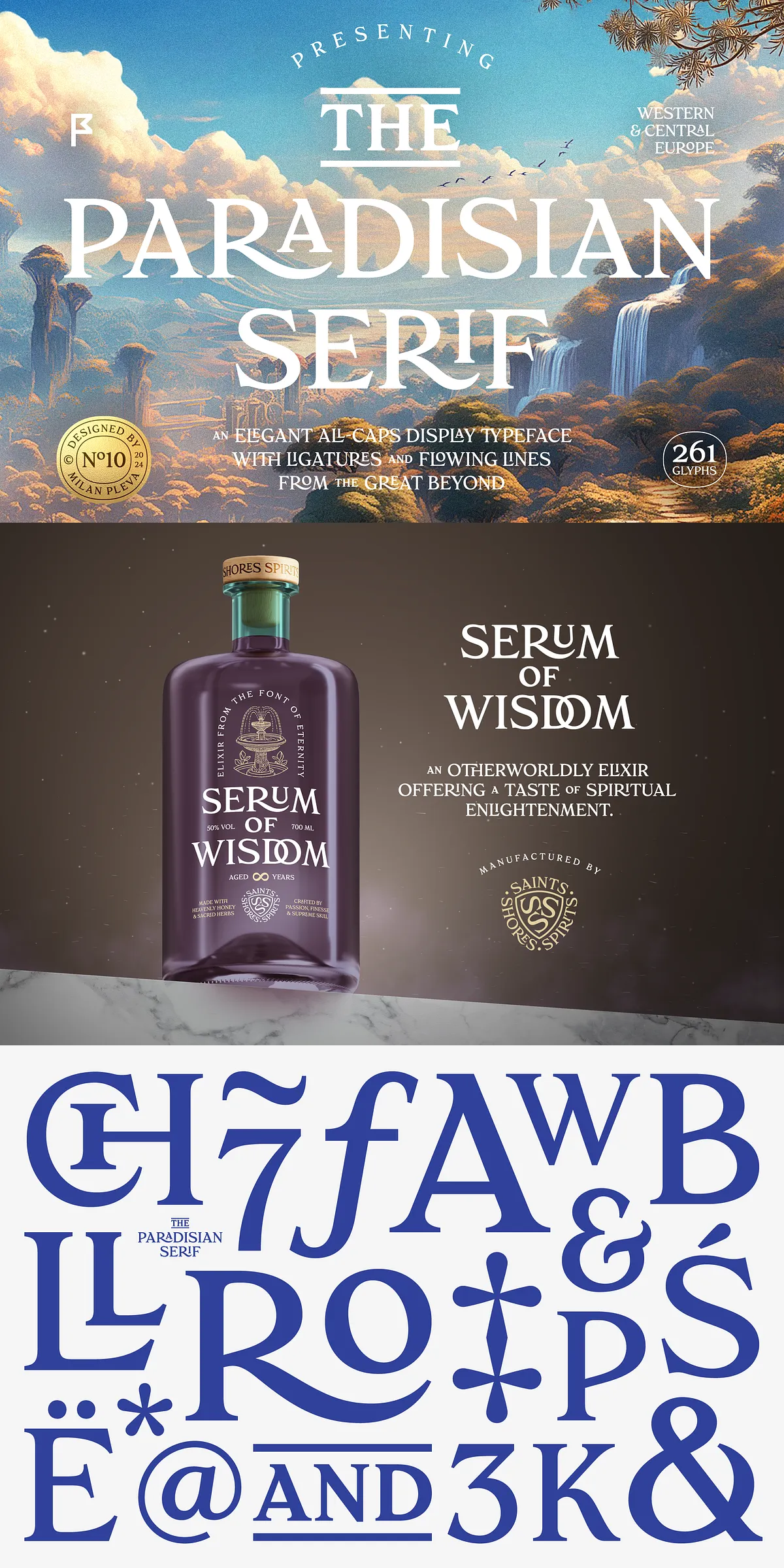
Unleash the full potential of your design with Paradisian Serif, a striking all-caps display typeface that blends architectural precision with flowing grace. Crafted for creatives who demand both presence and polish, this font doesn’t just convey text—it commands attention. Whether you’re crafting a bold logo, designing a magazine cover, or setting the tone for an editorial spread, Paradisian Serif brings sophistication to every stroke and every letterform.
Elevated Aesthetics: Crafted with Intention and Beauty
Every curve, connection, and flourish in Paradisian Serif is meticulously designed to create seamless visual harmony. The typeface’s balanced proportions, soft yet defined serifs, and elegant transitions between characters deliver an effortlessly refined look. It’s not merely a font—it’s a design philosophy wrapped in typography: understated strength, undeniable class, and a touch of poetic minimalism.
- 67 Hand-Designed Ligatures & Alternates: Unlock enhanced visual appeal with carefully crafted ligatures that eliminate awkward spacing and introduce rhythmic flow. Use them in headlines or decorative text to create dynamic, eye-catching compositions.
- Comprehensive Character Set: Supports the full basic Latin alphabet (A–Z), 56 accented characters, numbers, punctuation, currency symbols, mathematical operators, and diacritics—perfect for international projects and multilingual design.
- Old Style Figures: Add a classic touch to numbers with the inclusion of old style (lowercase) numerals, ideal for editorial and high-end design where visual texture matters.
Global Reach with Deep Language Support
Paradisian Serif is built for a global audience. With robust support for Latin 1 and Latin 2 character sets, it handles a wide range of languages across Western Europe, the Americas, and Central/Eastern Europe. This makes it an ideal choice for international brands, publishers, and designers working across cultures.
- Western European & American Languages: Afrikaans, Basque, Catalan, Danish, Dutch, English, Faroese, Finnish, French, Galician, German, Icelandic, Irish, Italian, Norwegian, Portuguese, Spanish, and Swedish.
- Slavic & Central European Languages: Czech, German, Hungarian, Polish, Romanian, Croatian, Slovak, Slovene.
Ideal for Premium Visual Identity Development
From luxury branding to editorial design, Paradisian Serif transforms ordinary text into extraordinary visual statements. Its bold but balanced presence makes it perfect for:
- Logo & Brand Identity Design: Create powerful, memorable brand signatures that reflect elegance and authority.
- Magazines & Editorial Layouts: Use it for headlines, pull quotes, and section titles that exude sophistication and clarity.
- Print & Digital Media: Elevate packaging, posters, invitations, advertisements, and website headers with a refined typographic voice.
- High-End Content Creation: Apply it to book covers, luxury product launches, fashion editorials, and premium campaigns.
- Designed for smooth rendering at any size—perfect for large-scale signage, print, and web use.